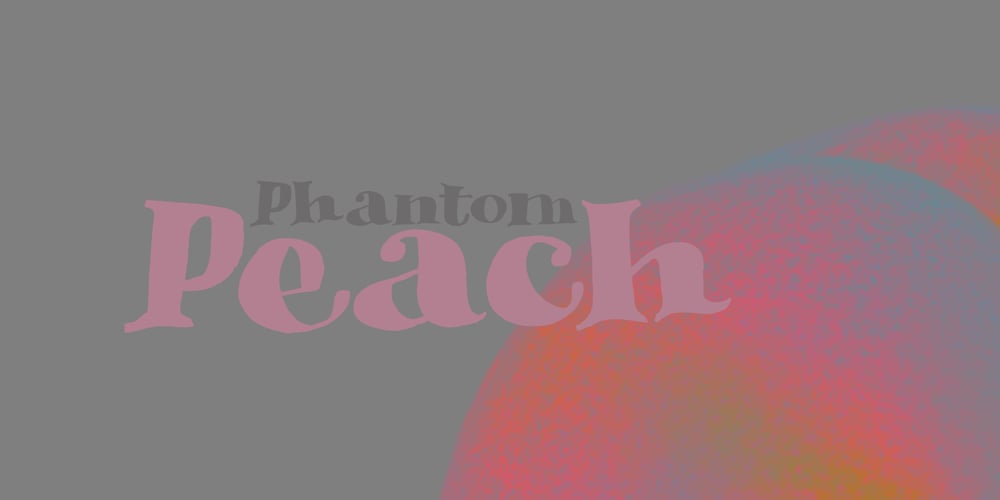
Phantom Peach
Phantom Peach font
Phantom Peach Font Family was designed by David Kerkhoff and published by Hanoded. Phantom Peach contains 1 styles and family package options. This summer there is an abundance of peaches. However, every time I like to eat one, they’re gone. My kids love them, so that leaves me looking for phantom peaches. Phantom Peach is a very higgledy piggledy, fun (yet slightly scary) Didone font, which makes it ideal for children’s books, posters and packaging. Comes with a skin full of diacritics.